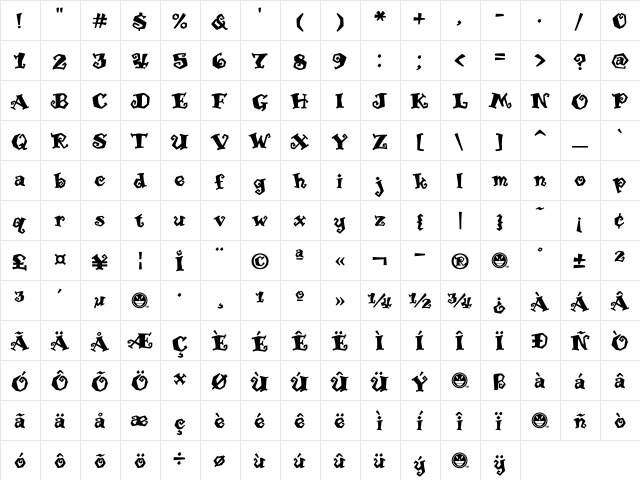
WILD2 Peppermint Normal
Design Context for WILD2 Peppermint Typeface
WILD2 Peppermint is a composed and adaptable typeface that performs quietly and consistently across a wide range of design contexts.